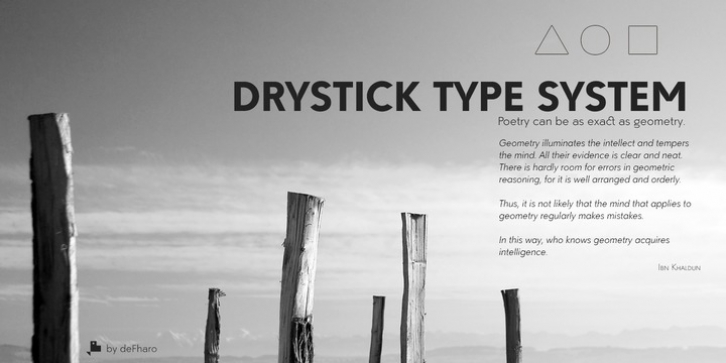
Publisher: deFharo
Drystick is a Sans Serif typographic family of Geo-Grotesque style with 8 pesos plus the italic versions all include small capital letters the symbol of Bitcoin (b #) and other cryptocurrency symbols.
It is a geometric typography, minimalist, with neo-grotesque modulations. The typeface has alternative letters and numbers, small caps and advanced OpenType functions. The Italic versions have some of their own characters (&, @, Q, a, g, y), these versions have many optical corrections to balance the deformations created in many curves by the mere inclination of the letters, which in the case of This typography is 9 °.
The drawn of the vectors is careful to obtain smooth curves and elegant appearance, the thicker versions have ink traps in the joints of the joints to use in small sizes. The Metric and the Kerning of all the versions I have reviewed individually to obtain maximum readability in any type of text and size.